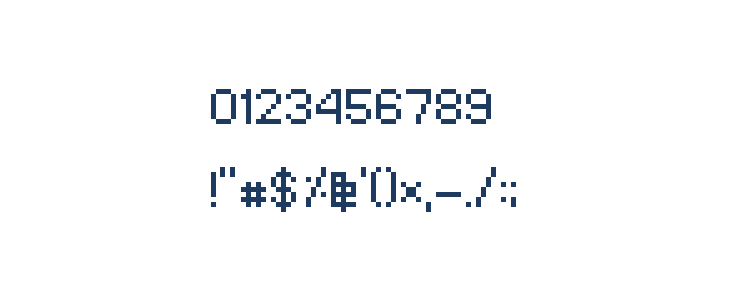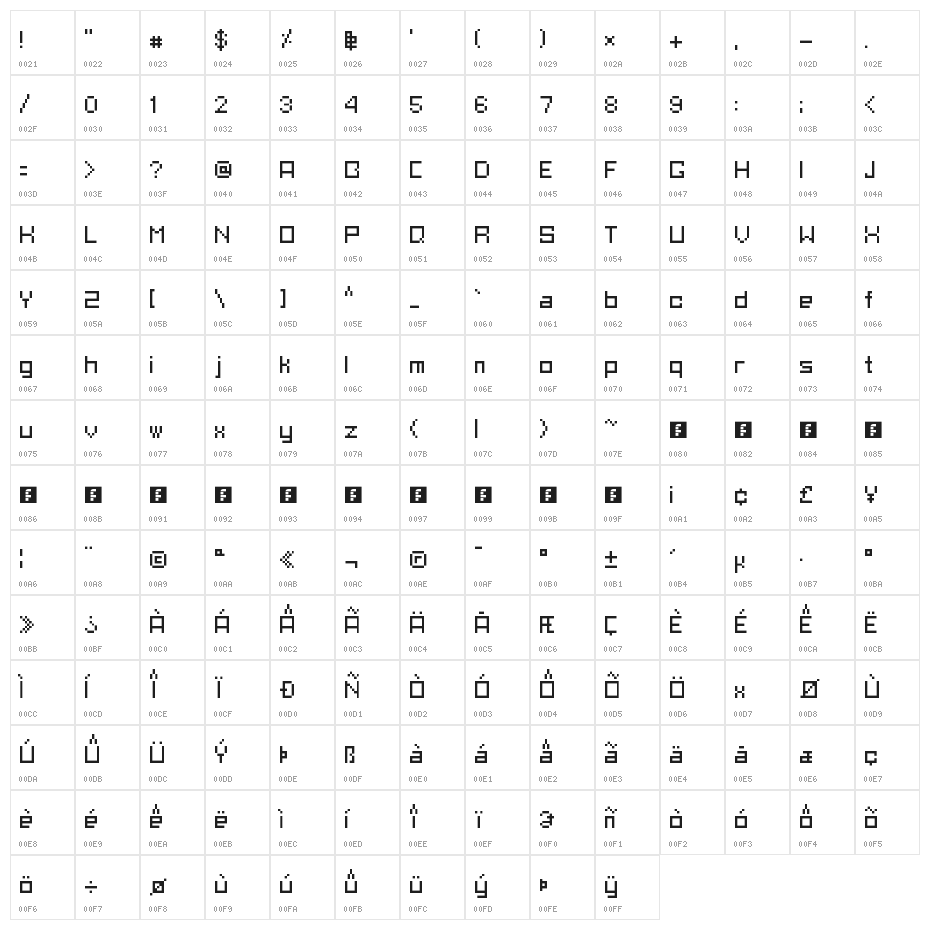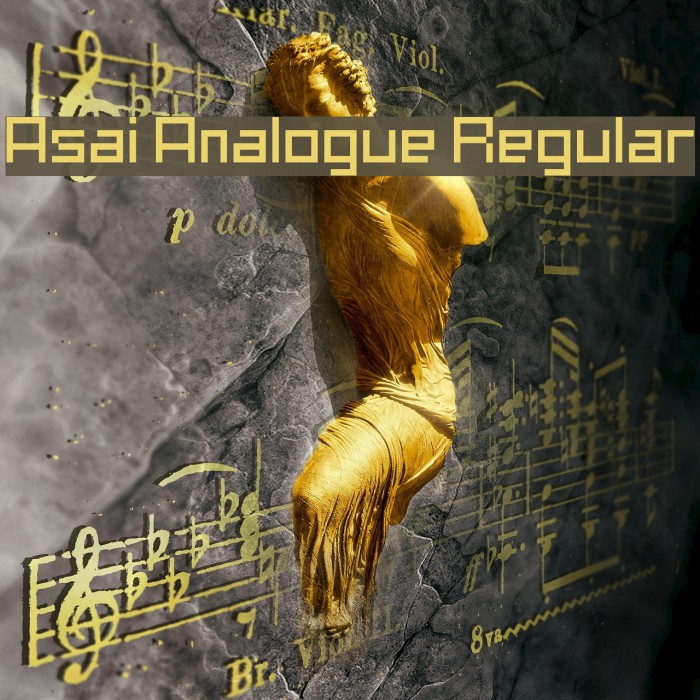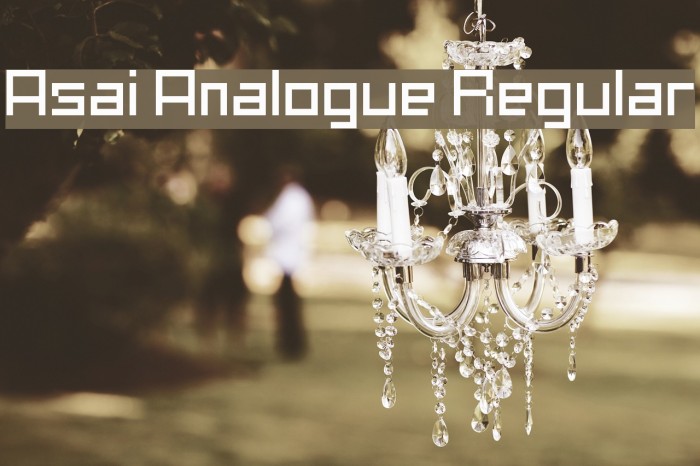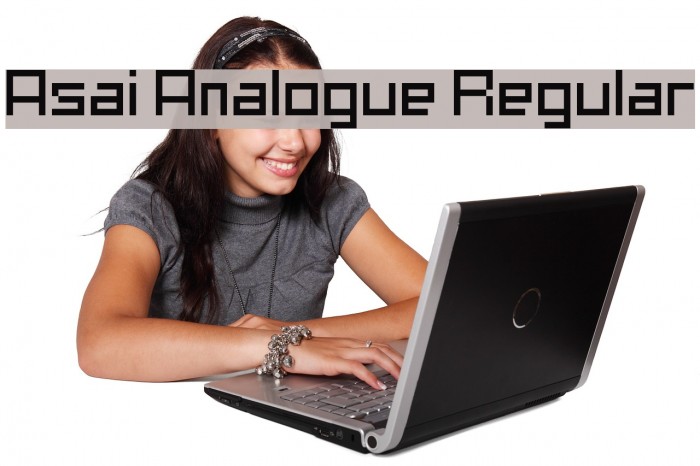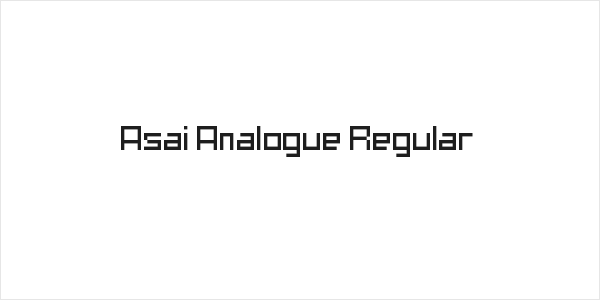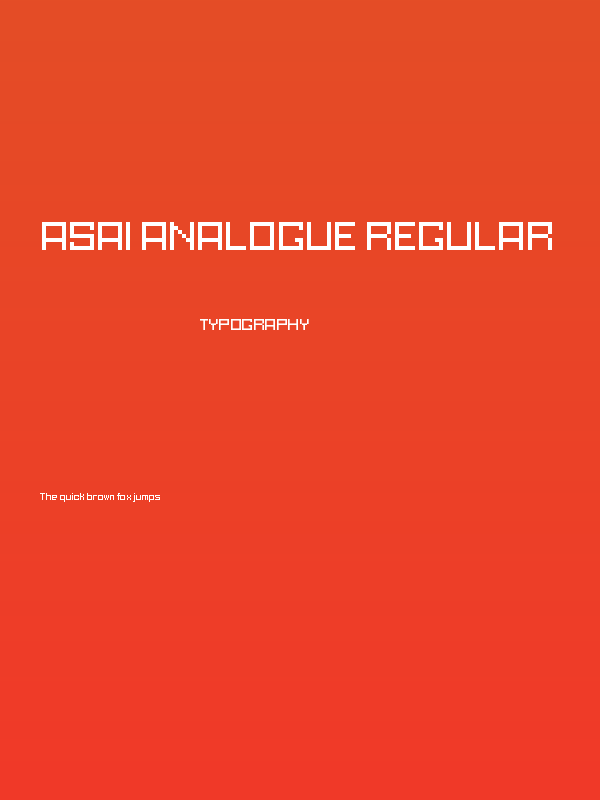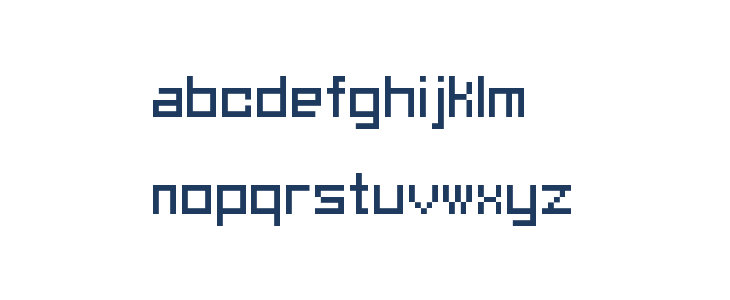
Asai Analogue Regular Font
Asai Analogue Regular Description
This font features a geometric, pixelated design reminiscent of early digital displays. Each character is constructed with a grid-like precision, giving it a distinctly retro, digital aesthetic. The uniformity in stroke width across all characters contributes to a cohesive and structured appearance. The uppercase and lowercase letters maintain a consistent height, enhancing readability while preserving the font's unique style. The numerals and special characters are crafted with the same attention to geometric form, ensuring they integrate seamlessly with the alphabetic characters. This font's design is ideal for projects that aim to evoke a sense of nostalgia or a connection to digital technology.
| Overall Style | Retro, Digital |
| Use Case | Headlines, Logos, Digital displays |
| Proposed Projects | Ideal for video game design, tech-themed posters, digital art projects, and retro-style branding. |